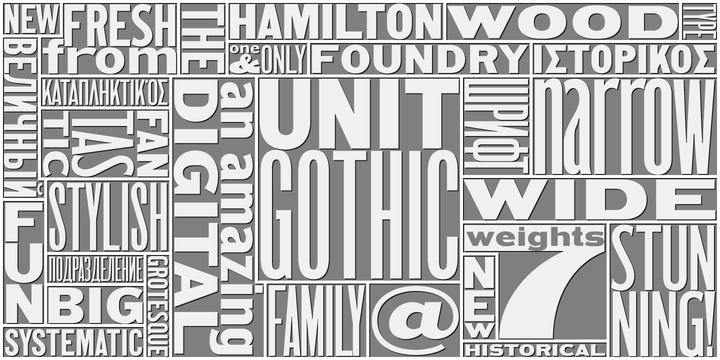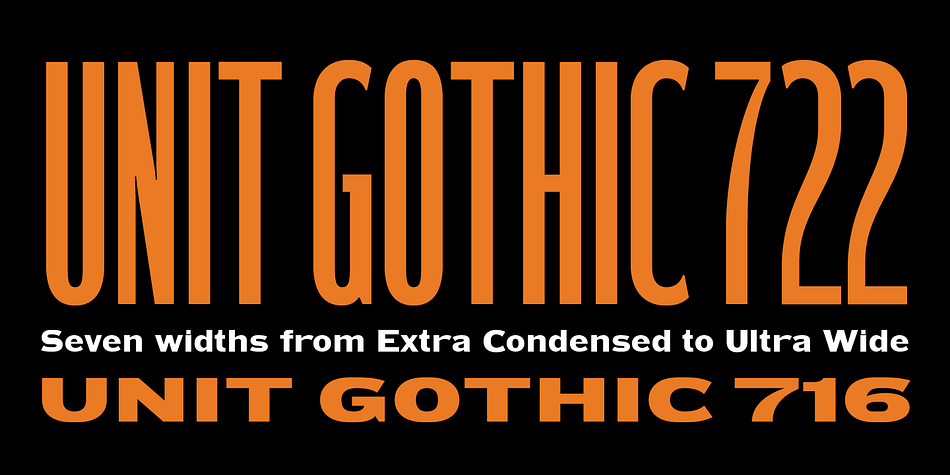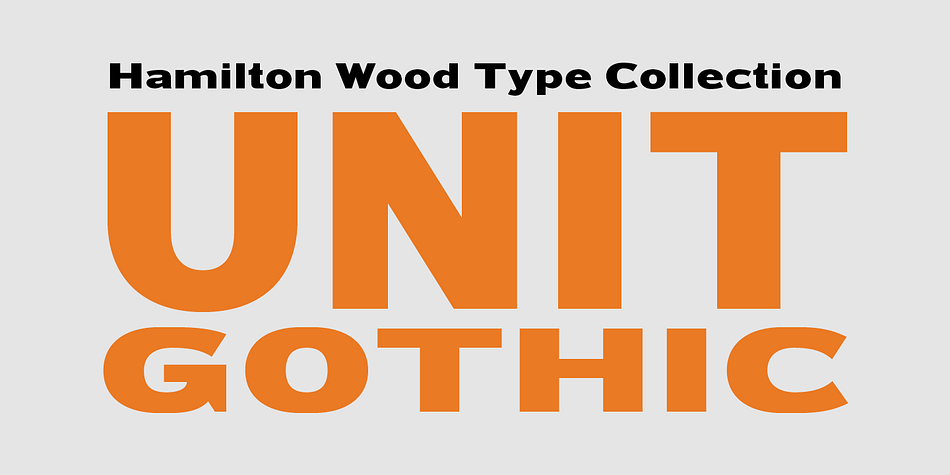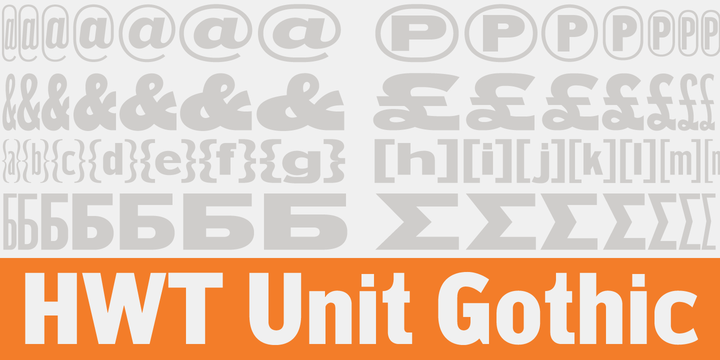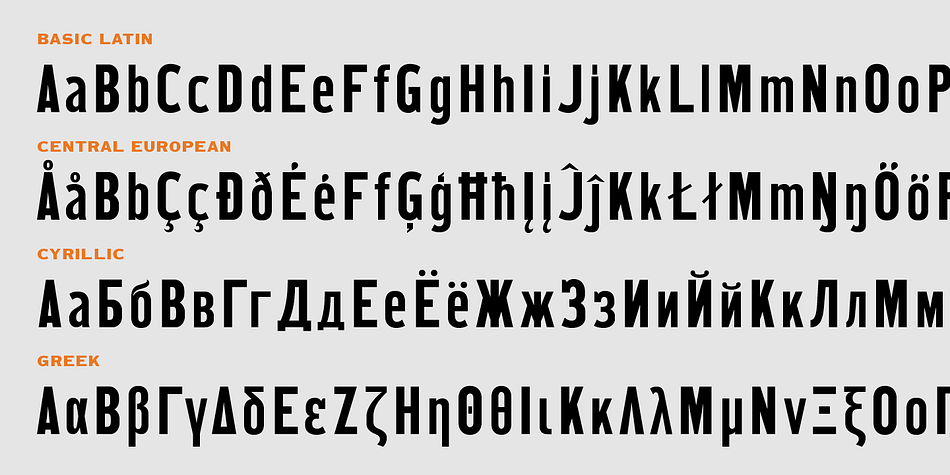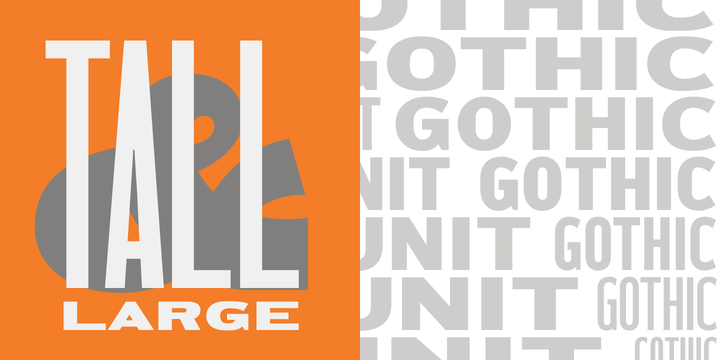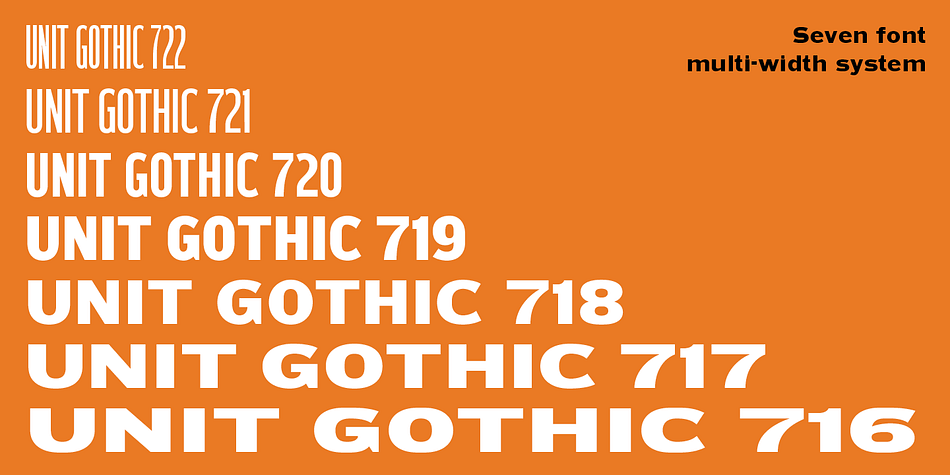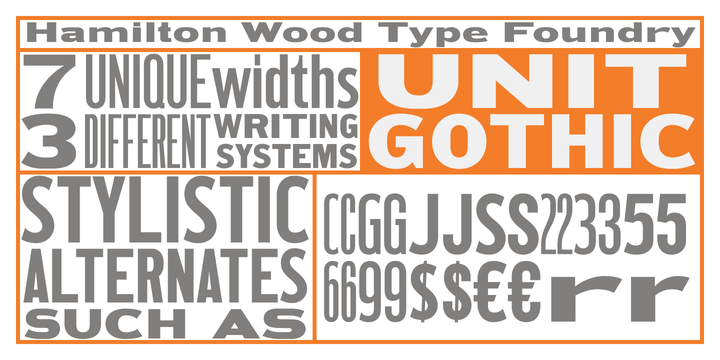
Designed by James Todd, HWT Unit Gothic is a display sans and sans serif font family. This typeface has seven styles and was published by Hamilton Wood Type.
The Unit Gothic series was released by Hamilton Manufacturing Co. In 1907. This sans serif family features one of the first multi width/weight type ‘systems’ anticipating the Univers font system by 50 years. This set of 7 fonts was designed to aid in press room efficiency and with its incremental variation in widths gave poster printers unprecedented flexibility in fitting copy while using consistently harmonious fonts. This HWT release is the first ever digital version of these fonts. Each font contains 600 glyphs including Greek and Cyrillic character sets as well as alternate characters which are based on the actual special character production patterns from the Hamilton Wood Type Museum collection.
Foundry | Hamilton Wood Type |
Designer | James Todd |